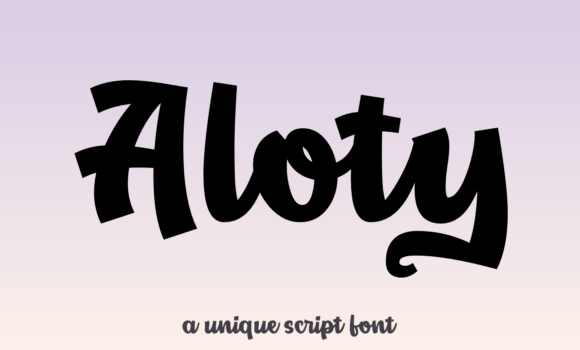
Aloty Font – Free Download Introduction to Aloty Font Aloty is a bold script font that has a playful and stylish look. 📸 Preview Gallery 3 images 📌 Product Name Aloty Font 👤 Author Creative Fabrica Fonts 📂 Category Explore